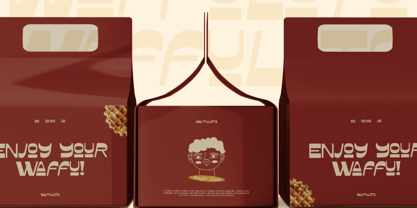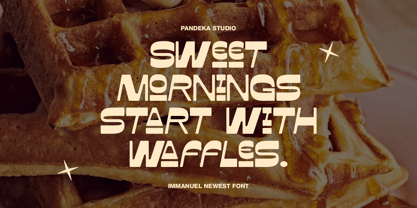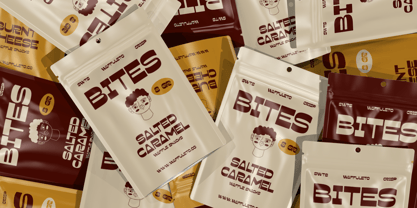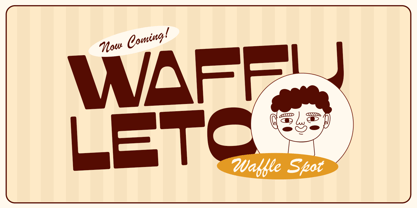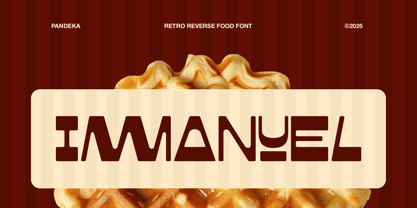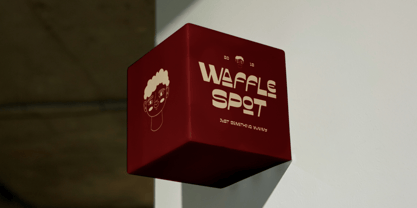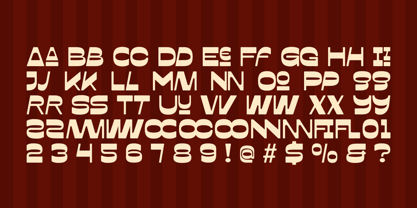
Immanuel is a playful retro reverse food font available in 2 styles: Regular and Rough, inspired by vintage food packaging, classic diner signage, waffle shops, and nostalgic culinary branding. Featuring bold reversed letterforms, soft curves, and chunky proportions, Immanuel delivers a warm, tasty retro feel that instantly grabs attention.
With 5+ built-in ligatures, Immanuel allows smoother letter connections and more expressive typography, making your designs feel more handcrafted and unique. This font is perfect for food logos, restaurant branding, café menus, snack packaging, bakery labels, food truck signage, posters, social media graphics, and retro culinary merchandise.
• 2 Style: Regular and Rough
• Full Character Set: Uppercase, lowercase, numbers, symbols, and punctuation
• 5+ Stylistic Ligatures
Immanuel